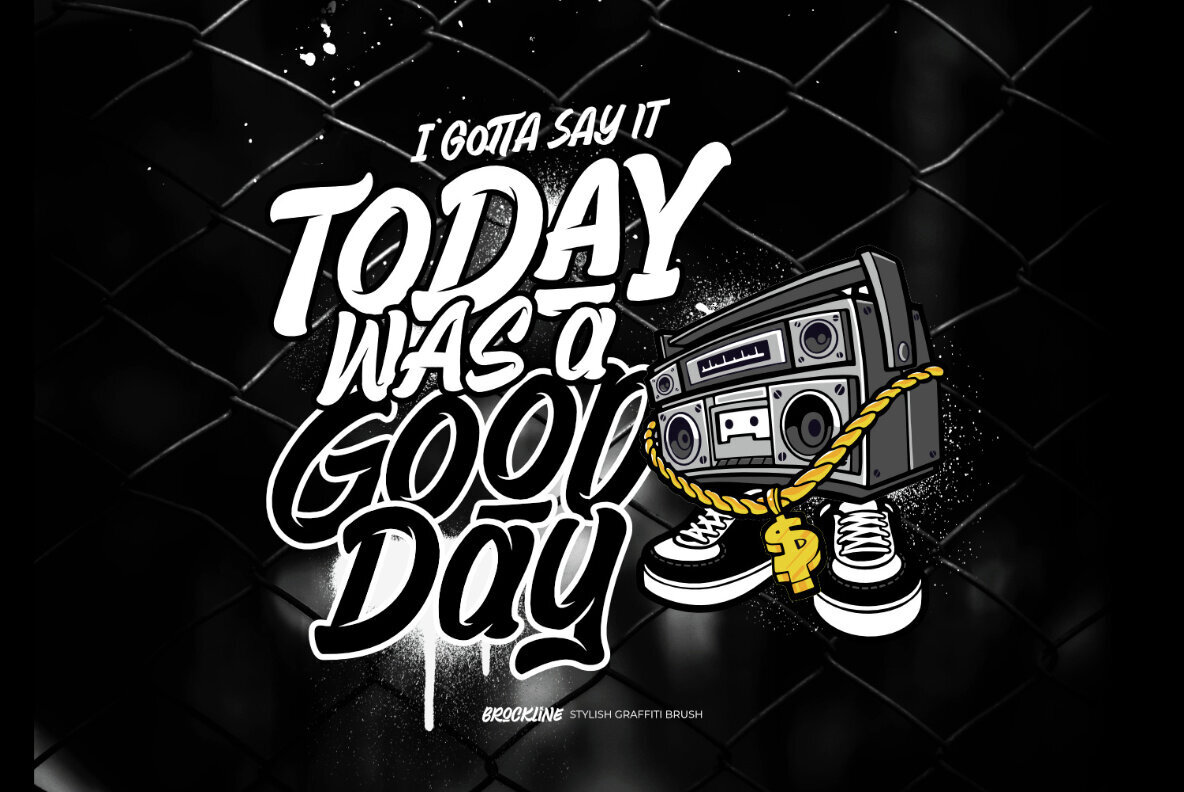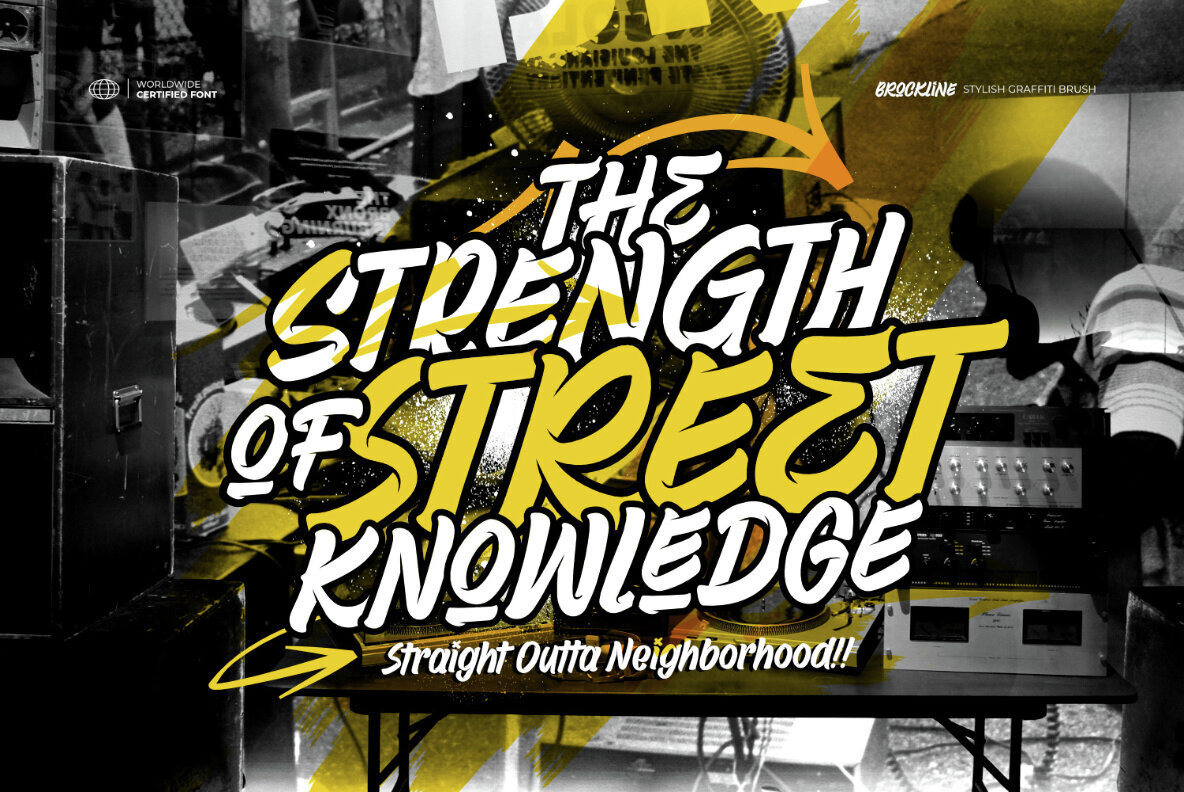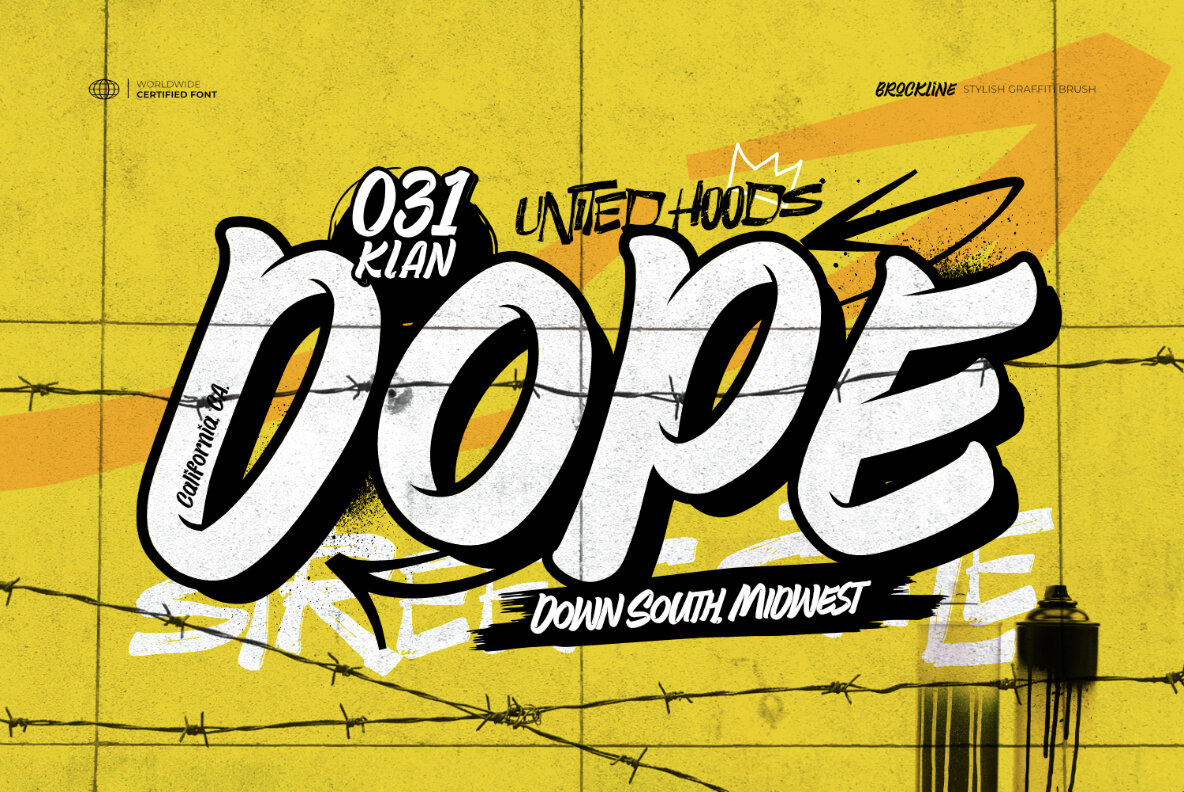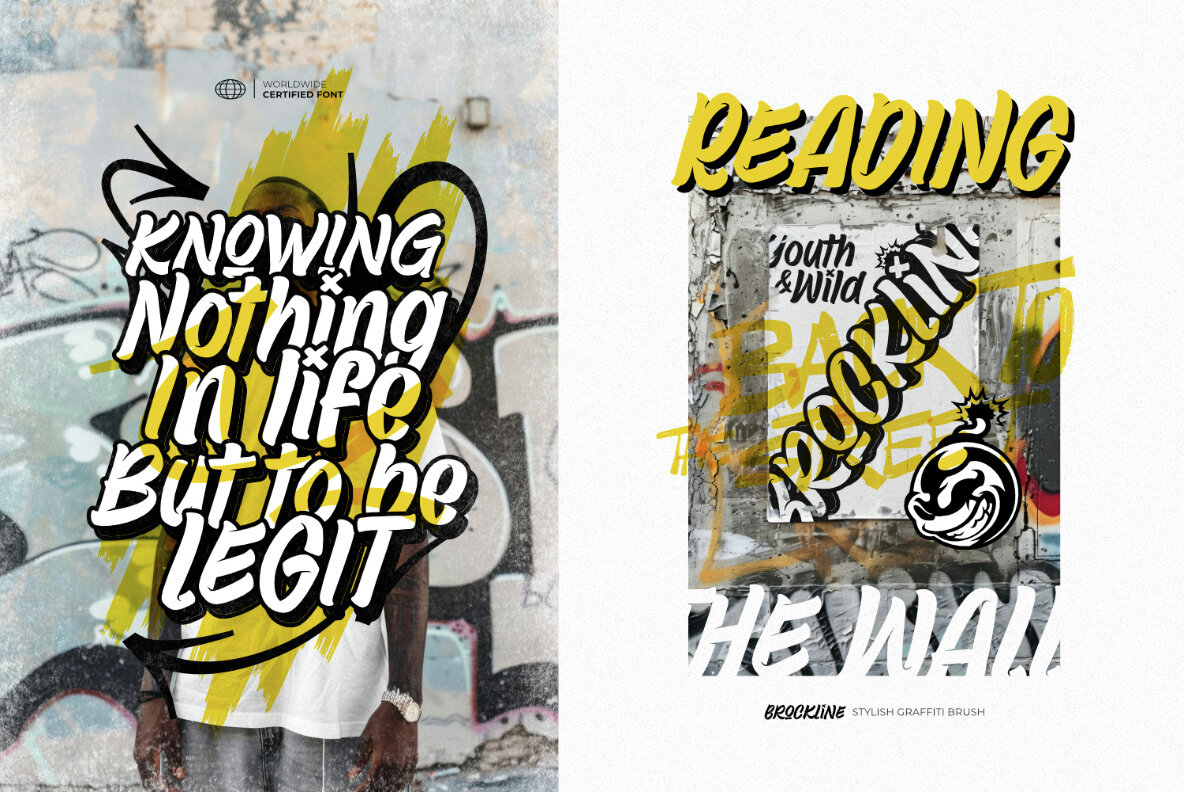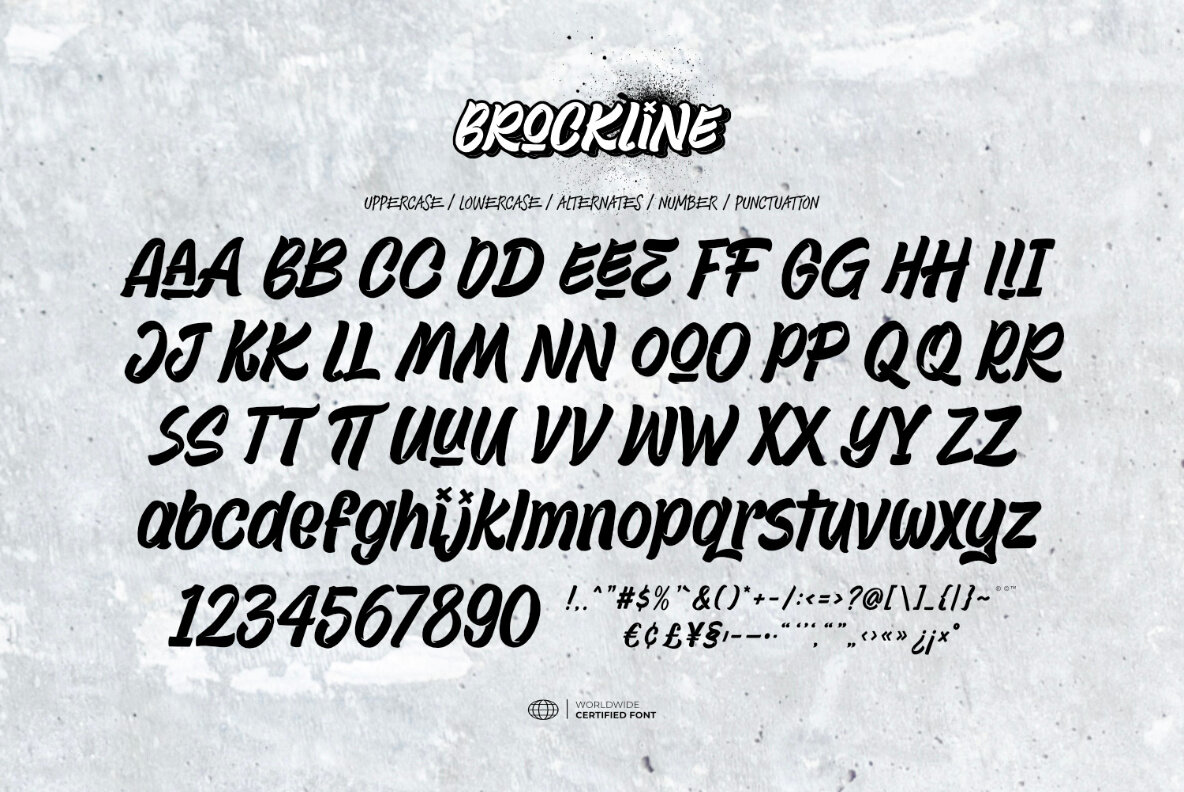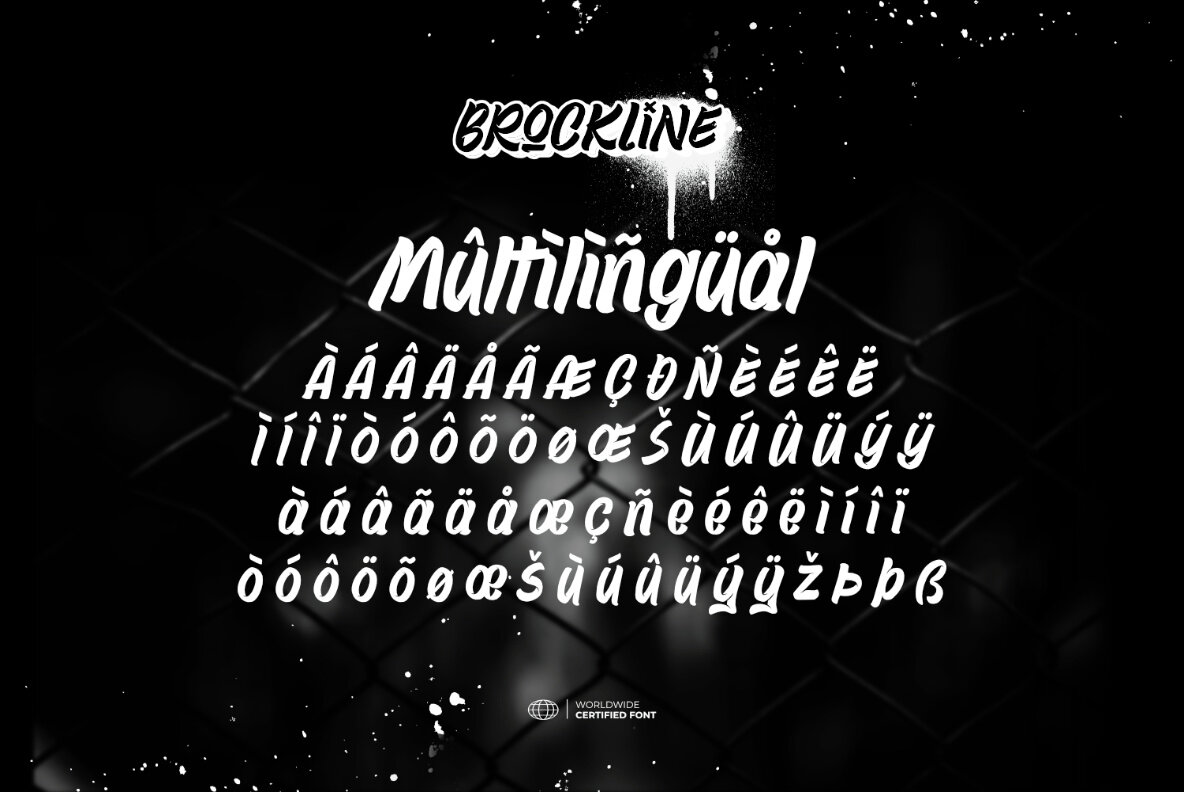
Brockline Font
Brockline Regular
Introducing Brockline, a stylish graffiti brush font that embodies urban culture. This typeface delivers bold, graffiti-inspired brush strokes with an energetic and rebellious flair. Featuring a unique blend of street style and playful cartoon elements, Brockline is perfect for creating eye-catching designs that stand out. Whether you're incorporating it into street art, edgy logos, or fashion-forward designs, this font sets trends rather than follows them.
Ideal for urban street fashion, stylish posters, magazine layouts, packaging, food and beverage branding, quotes, or as a striking text overlay, Brockline adds a dynamic edge to any project. It includes uppercase and lowercase letters, numbers, punctuation, alternates, and offers multilingual support. Works seamlessly on both PC and Mac platforms.